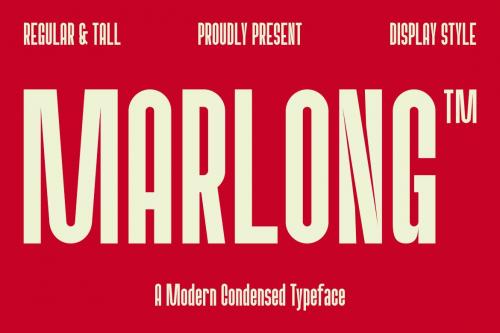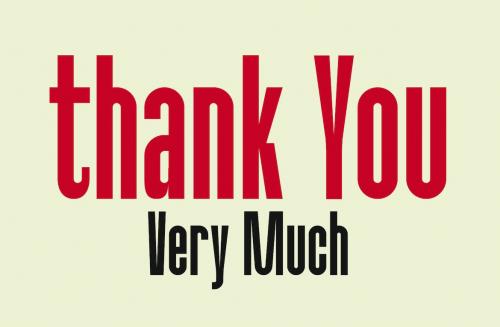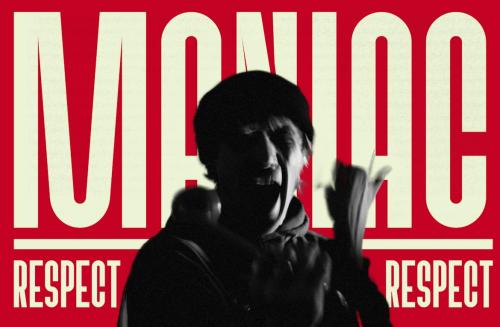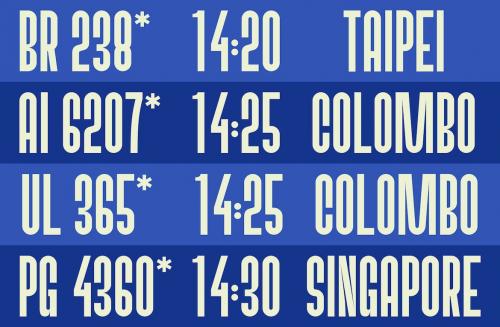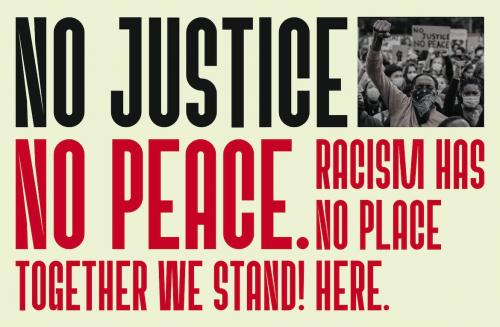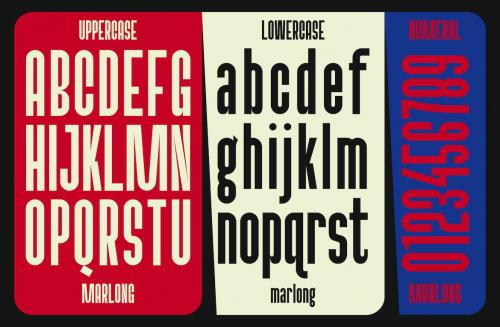
Marlong Font
Introducing our new product **Marlong Font** - Condensed Font **Marlong Font** - Modern Condensed Font is a bold and authentic display font. The font is suitable for any branding project like logo, Template Design, Product and many more. outstanding in a wide range of contexts.
Introducing our new product **Marlong Font** - Condensed Font
**Marlong Font** - Modern Condensed Font is a bold and authentic display font. The font is suitable for any branding project like logo, Template Design, Product and many more. outstanding in a wide range of contexts.
* Uppercase
* Lowercase
* Multilingual
* Ligature